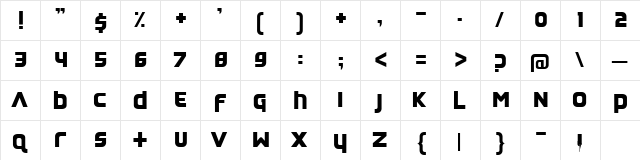
Feedback Quiet
| Foundry | Julian Brown |
| Designer | Julian Brown |
Design Context for Feedback Typeface
Feedback takes a measured approach to typography — its balanced proportions and neutral character make it a reliable workhorse for both digital and print work.